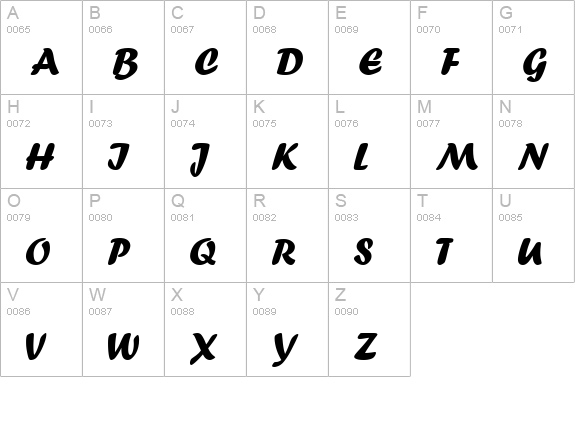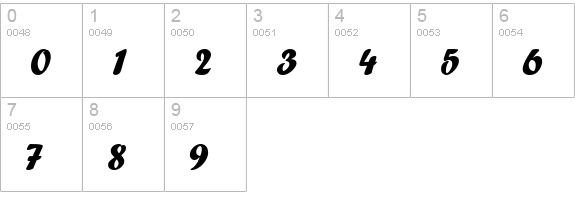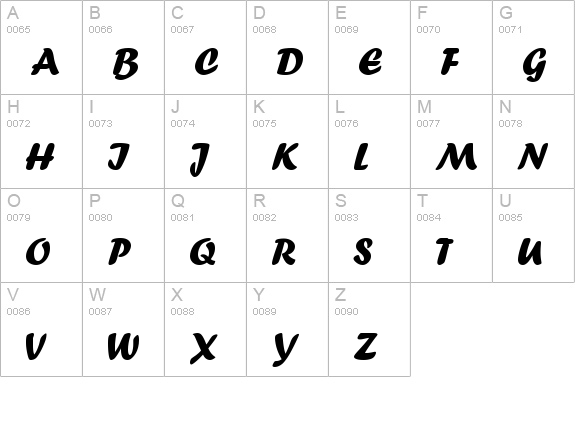
Forte font is a versatile and elegant typeface that exudes sophistication and timeless charm. With its bold strokes and graceful curves, Forte is an ideal choice for projects that require a touch of class and sophistication. Whether used for headlines, logos, or invitations, this font commands attention and makes a statement. The best part? Forte font is completely free to download at FontsMarket.com. This means that you can enhance your designs with this stunning typeface without breaking the bank. Don't miss out on the opportunity to elevate your projects with the beauty and style of Forte font, available for free at FontsMarket.com.